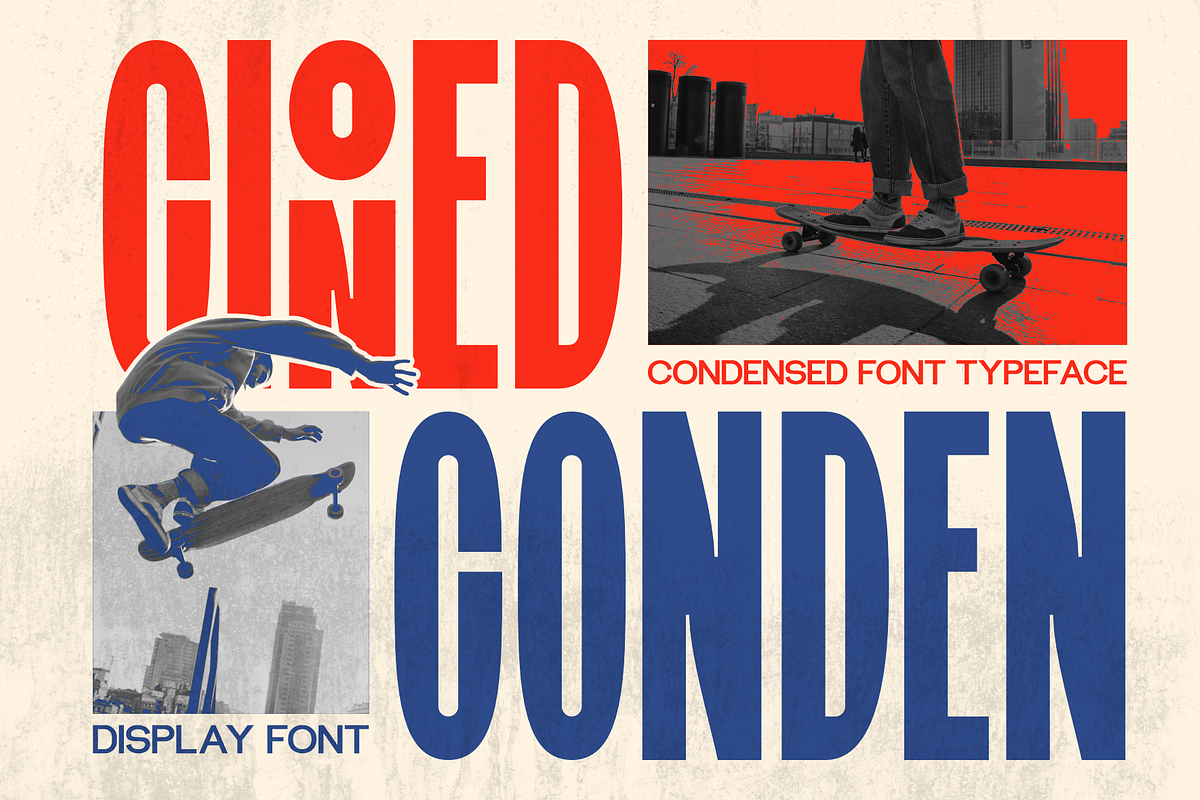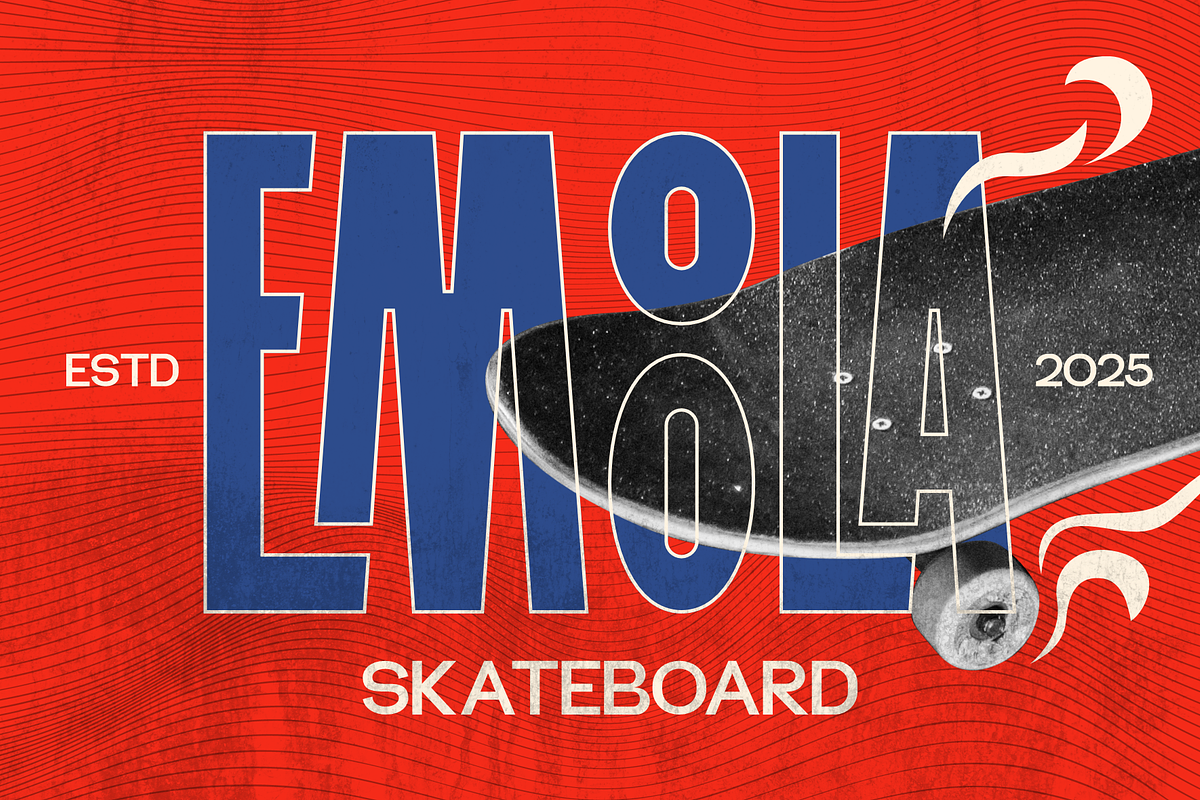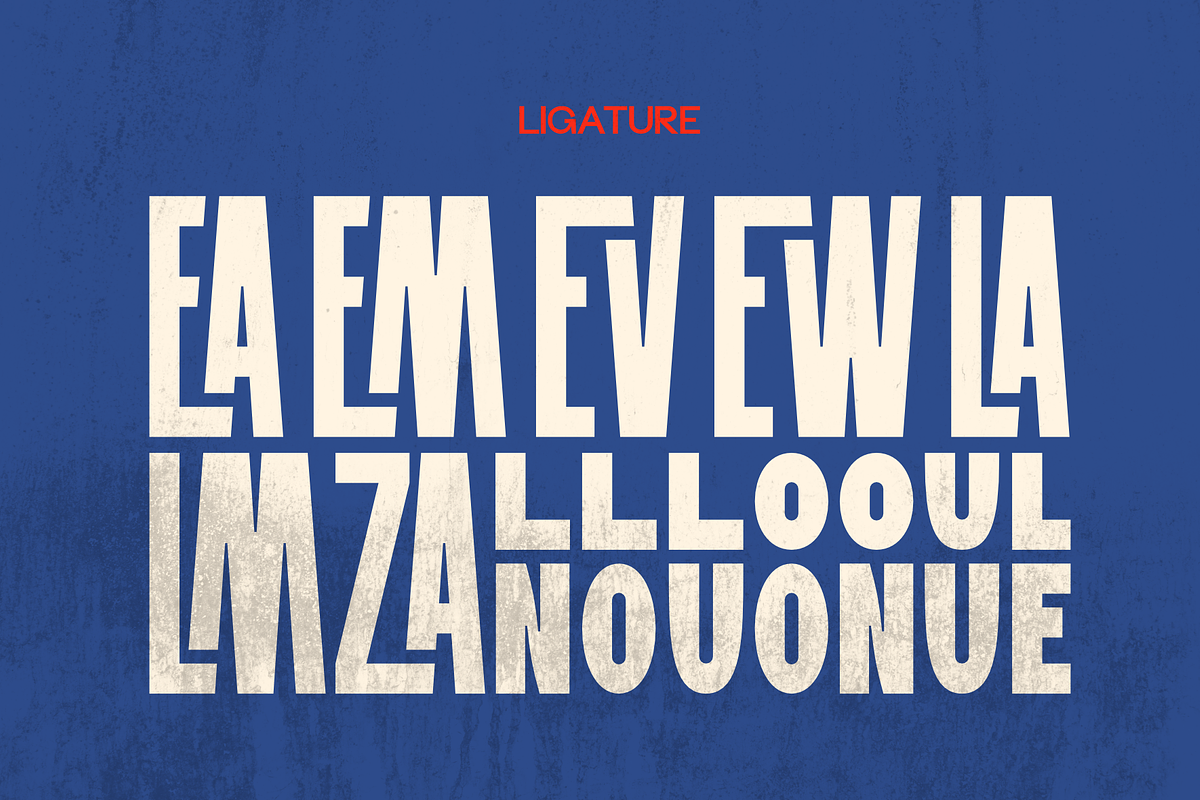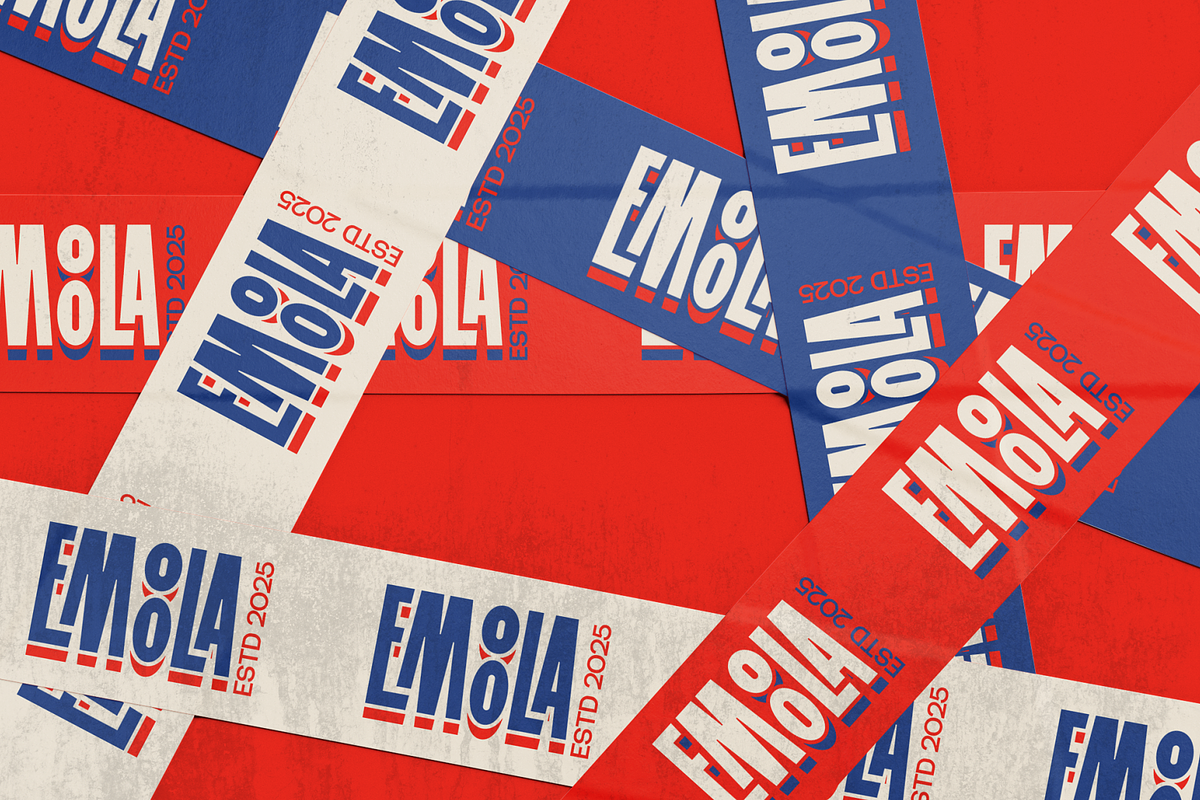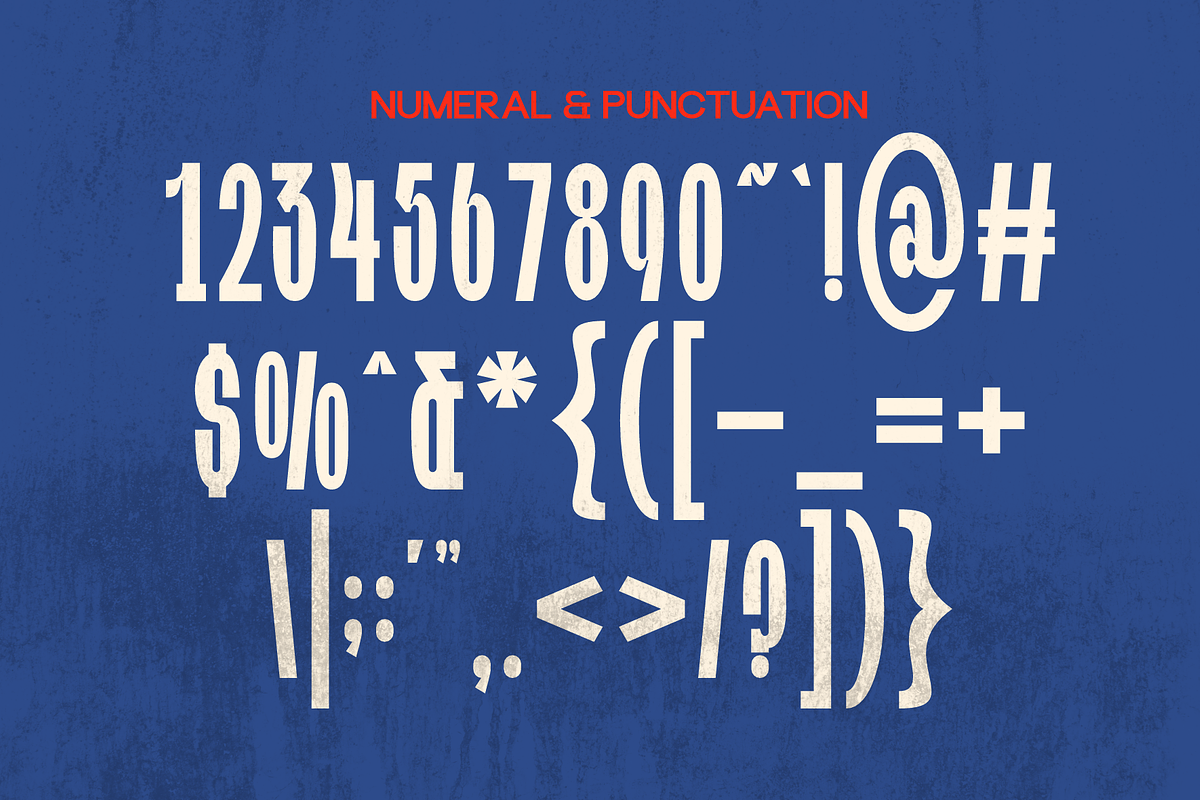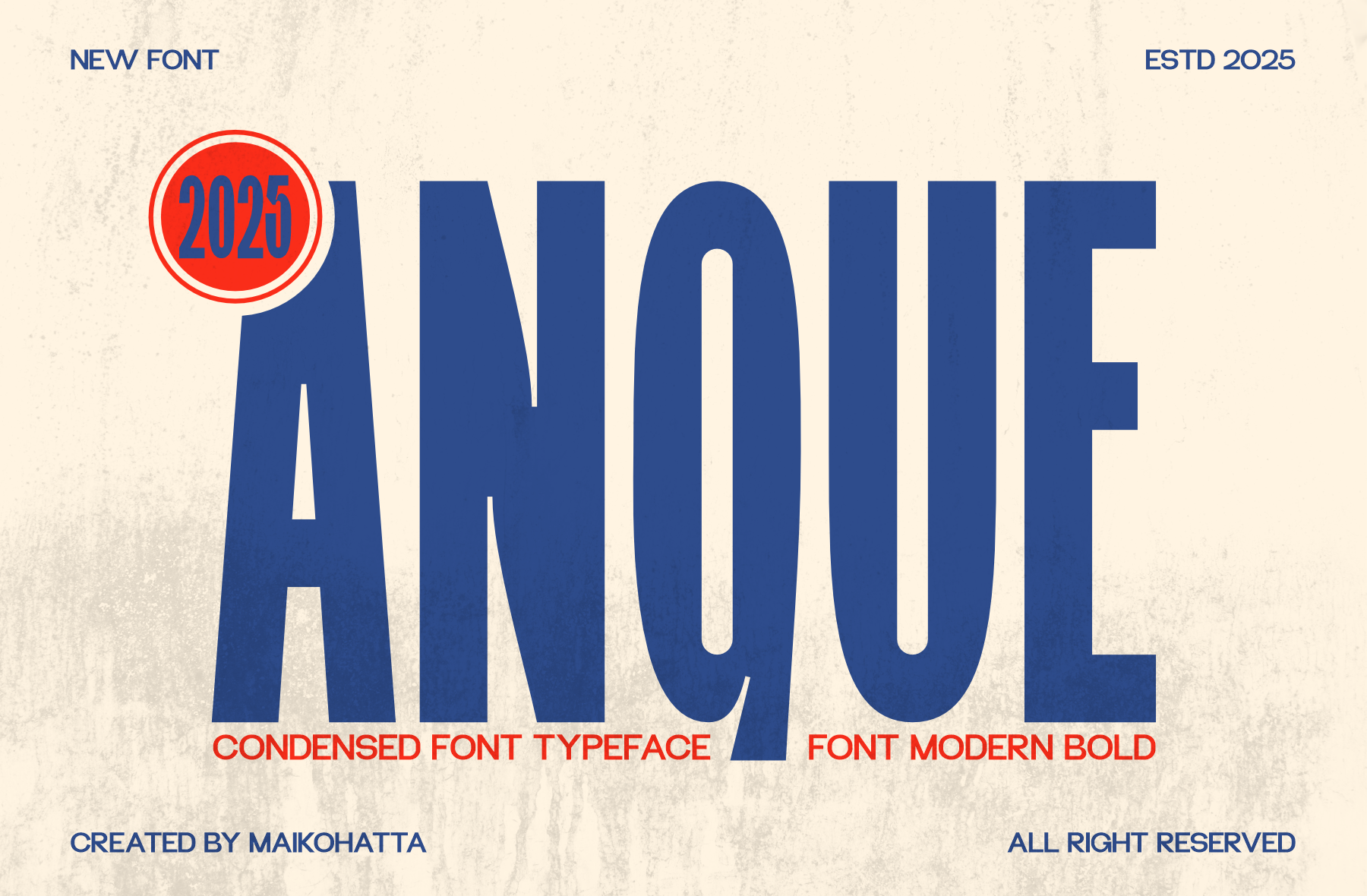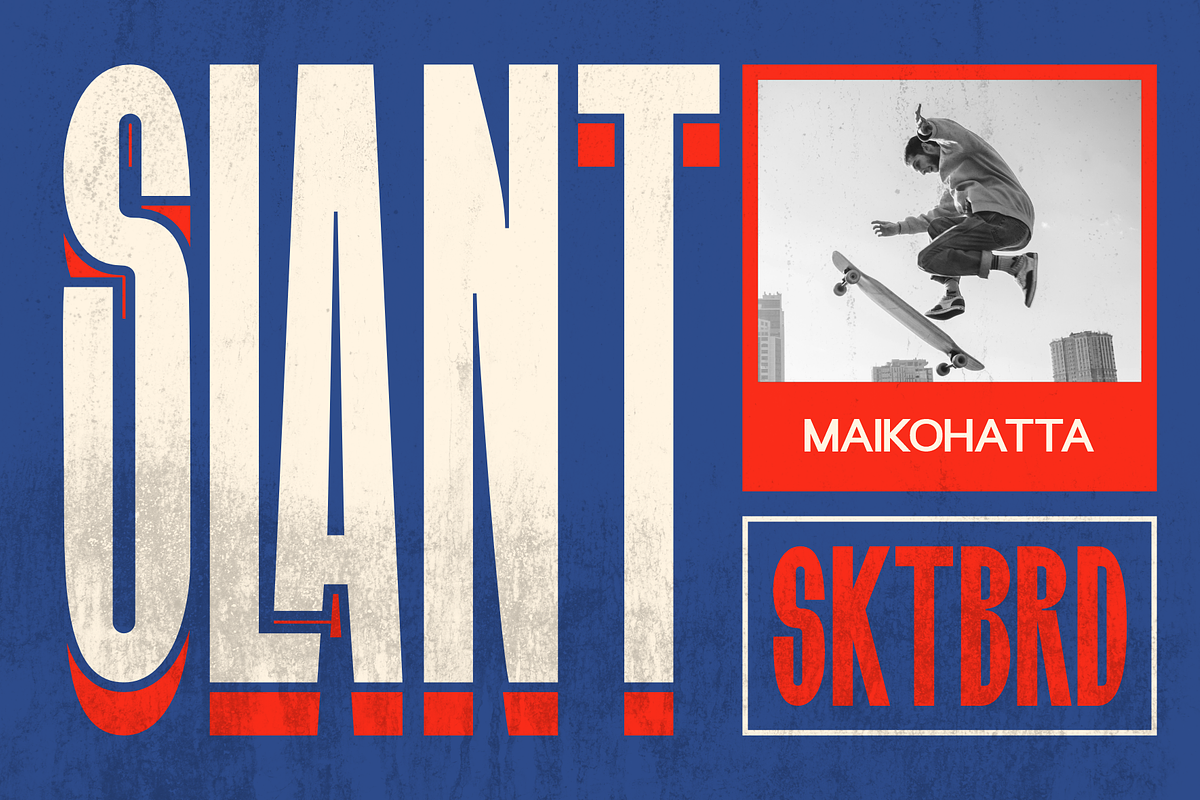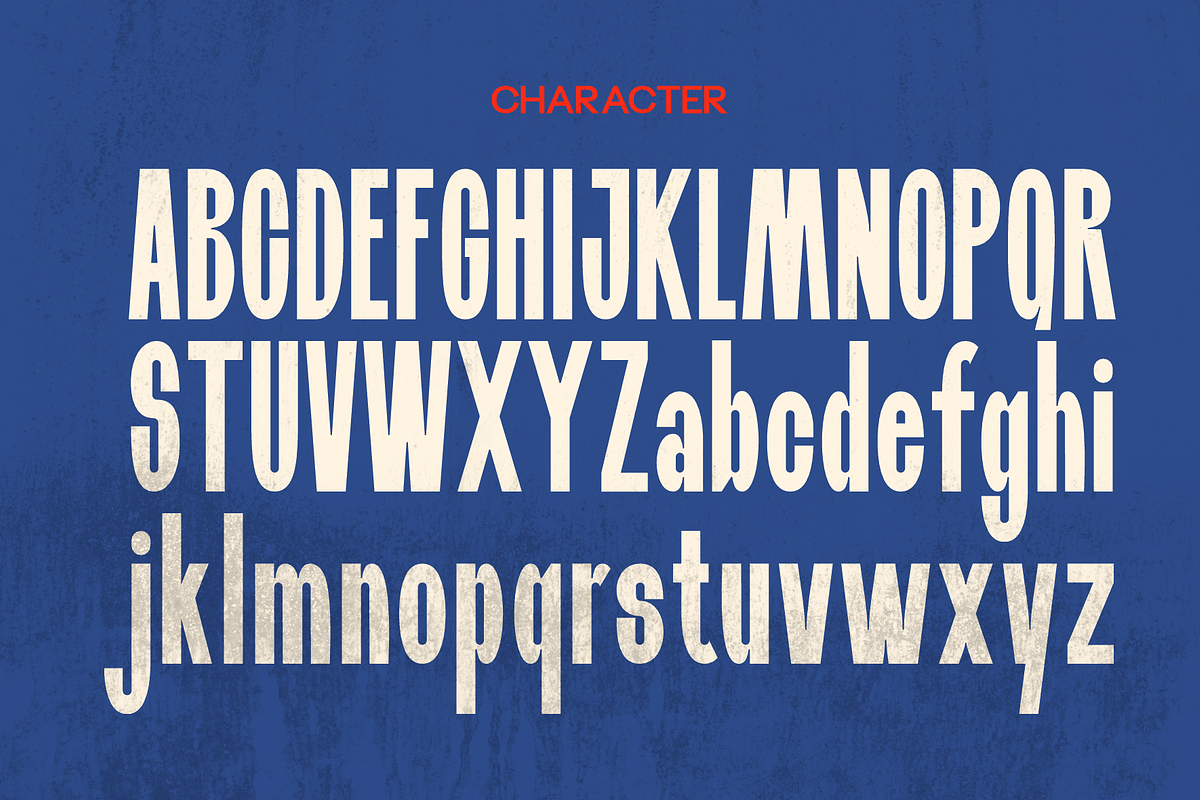
Anque – Modern Bold Condensed Font
Introducing our new product Anque - Modern Bold Condensed Font
Anque is a modern condensed display font designed to deliver a strong, bold, and confident visual impact. With its tall proportions and clean structure, this font is perfect for eye-catching headlines, posters, editorial layouts, branding, logos, packaging, and social media designs.
Inspired by modern editorial and retro poster typography, Anque combines a contemporary feel with a timeless condensed style. Its bold weight and high readability make it an excellent choice for both digital and print projects where clarity and presence matter most.
Anque works beautifully for fashion brands, magazines, advertising, music covers, sports designs, and creative branding projects that require a powerful and modern look.